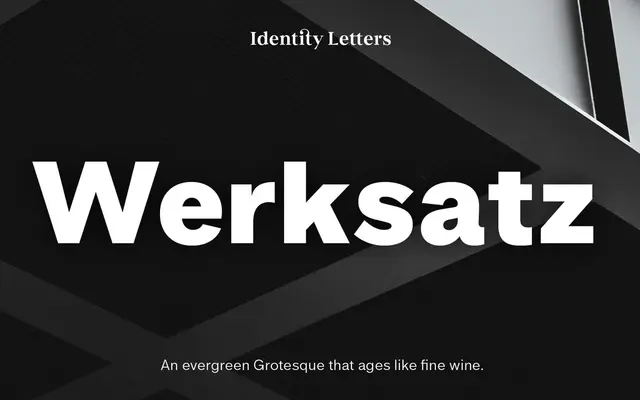
A contemporary grotesque drawing on Akzidenz Grotesk and Venus, offered across 10 weights with obliques and a variable font.
Built in the tradition of early European grotesques, Werksatz takes the low-contrast, industrially warm character of Akzidenz Grotesk and Venus and redraws it for present-day use. The family spans 10 weights from Thin to Black, each with a matching oblique, and includes a variable font covering the full weight axis. Over 940 characters per style give it broad Latin Extended coverage including small capitals, oldstyle figures and a comprehensive set of OpenType features.
Explicitly inspired by Akzidenz Grotesk and Venus, two canonical 19th-century grotesques; the design follows their low-contrast, upright, industrial warmth characteristic of the genre.